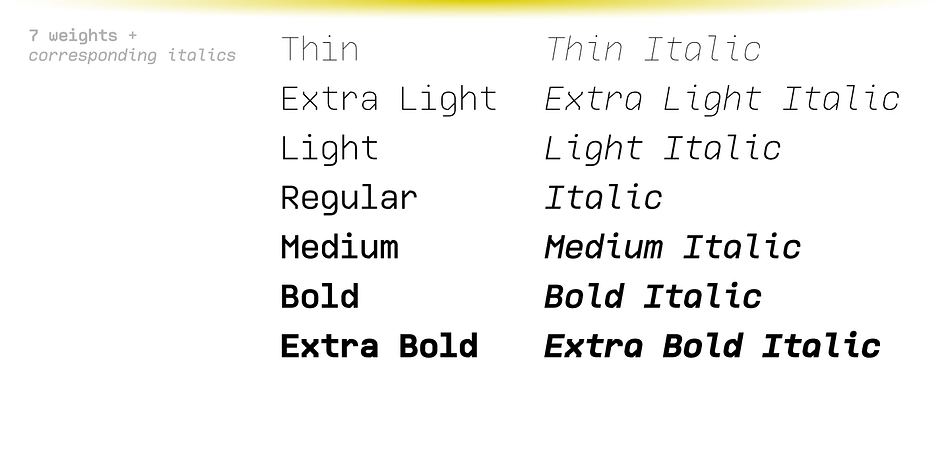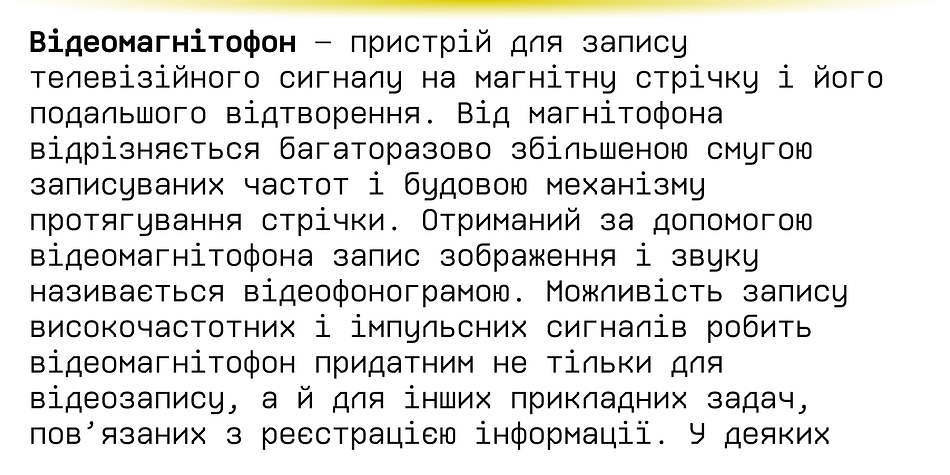
Ki
Designed by Andriy Konstantynov, Ki is a sans serif font family. This typeface has fourteen styles and was published by Mint Type.
Ki is a monospaced typeface inspired by older VCR / camcorder OSD (on-screen display) fonts. It is peculiar for its diagonal angles being restricted to 45°, which results in a specific textural effect, very legible in small text sizes.
Ki comes in 7 weights with corresponding italics, and features extensive language support with over 500 glyphs, including Cyrillic.